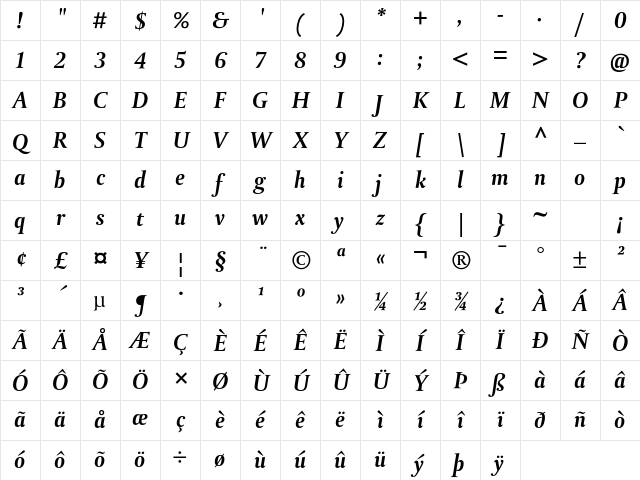
Design Context for DTLParadoxT
DTLParadoxT is a composed and adaptable typeface that performs quietly and consistently across a wide range of design contexts. The slanted form adds forward momentum and visual energy. Its bold stroke weight gives it real presence on the page.
Pro Tip: Use DTLParadoxT for emphasis, pull quotes, and subheadings where its slanted energy can add rhythm to the layout.